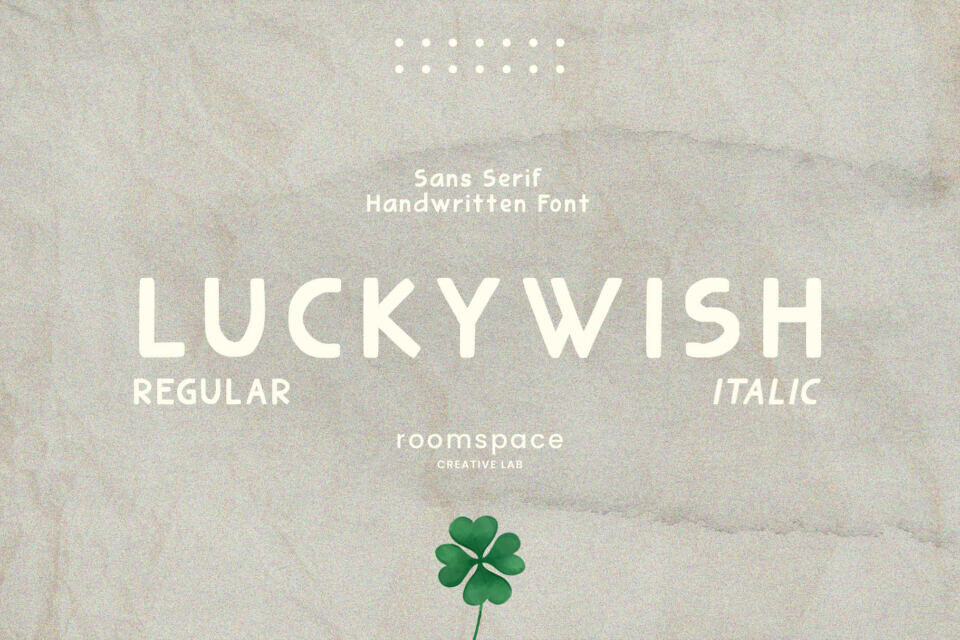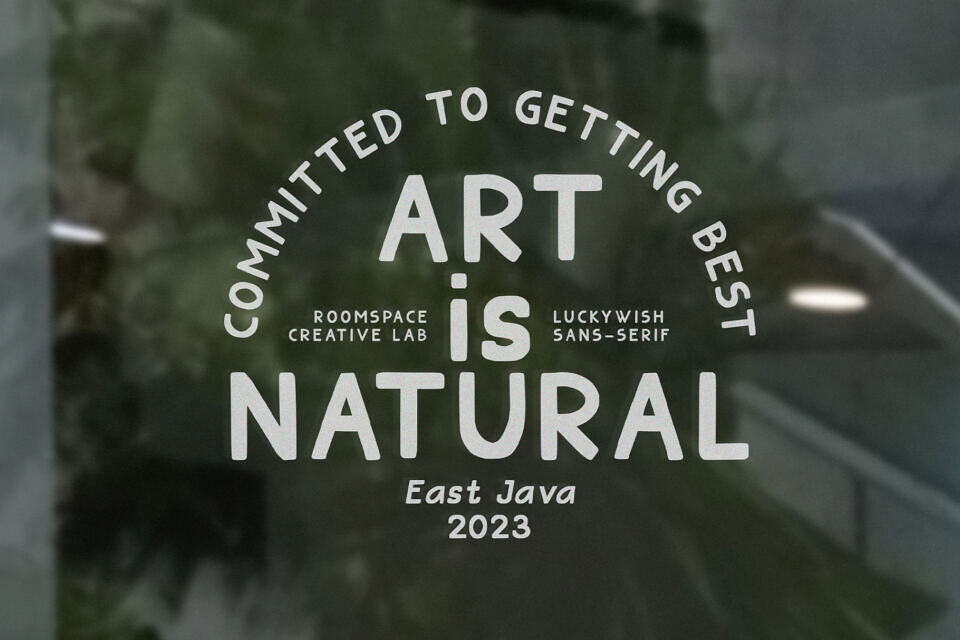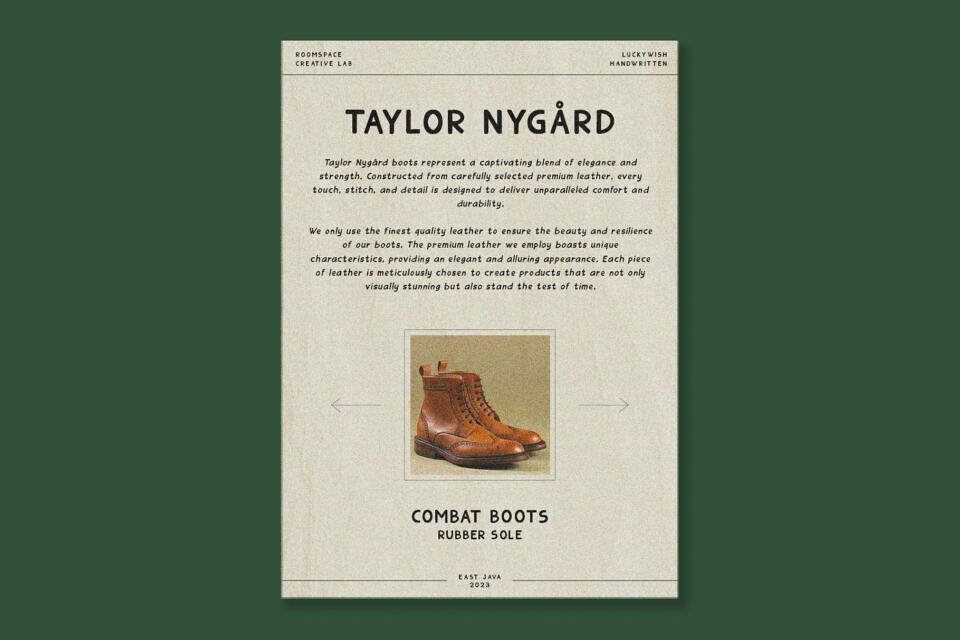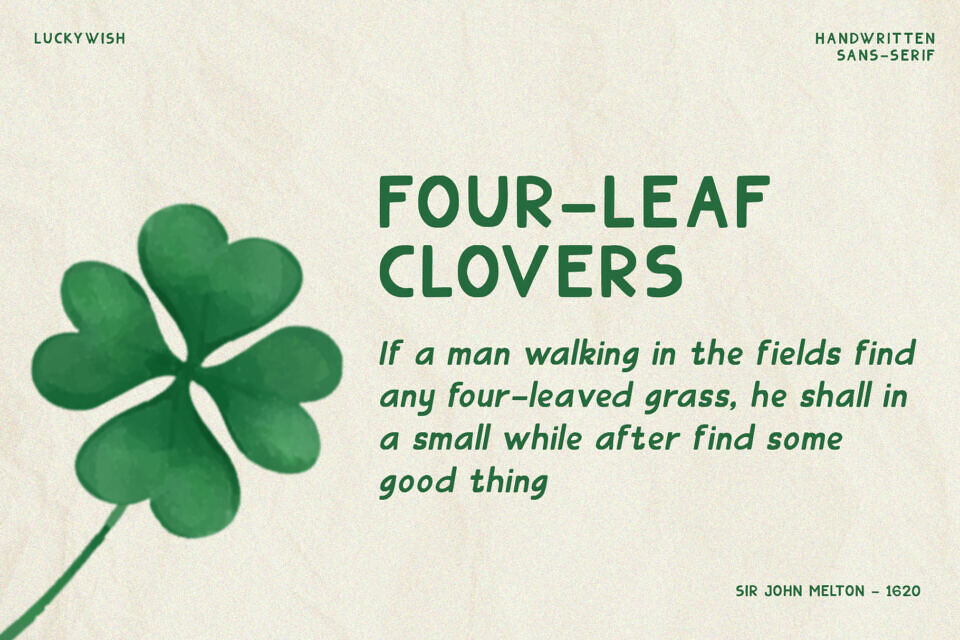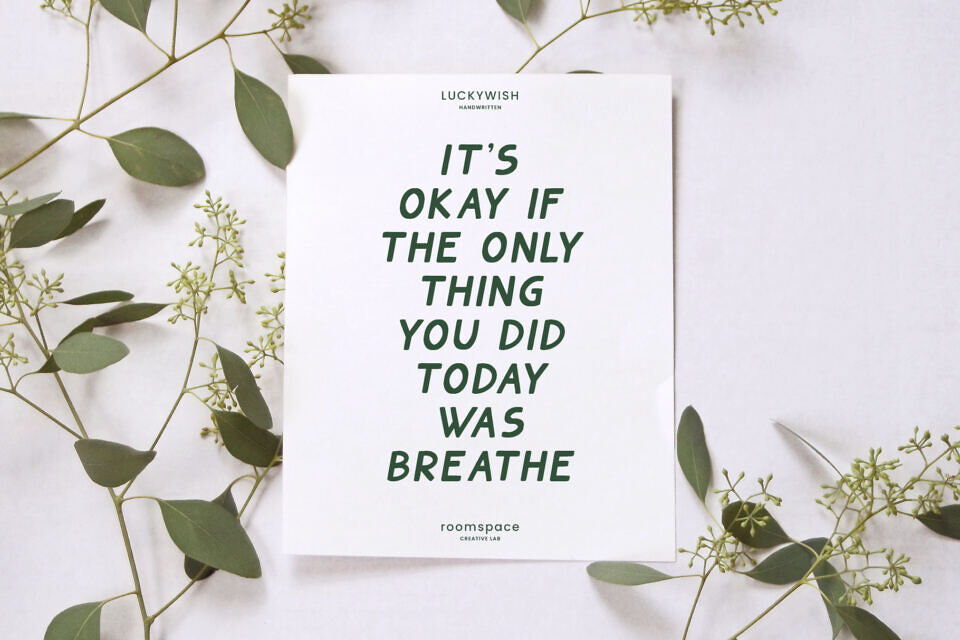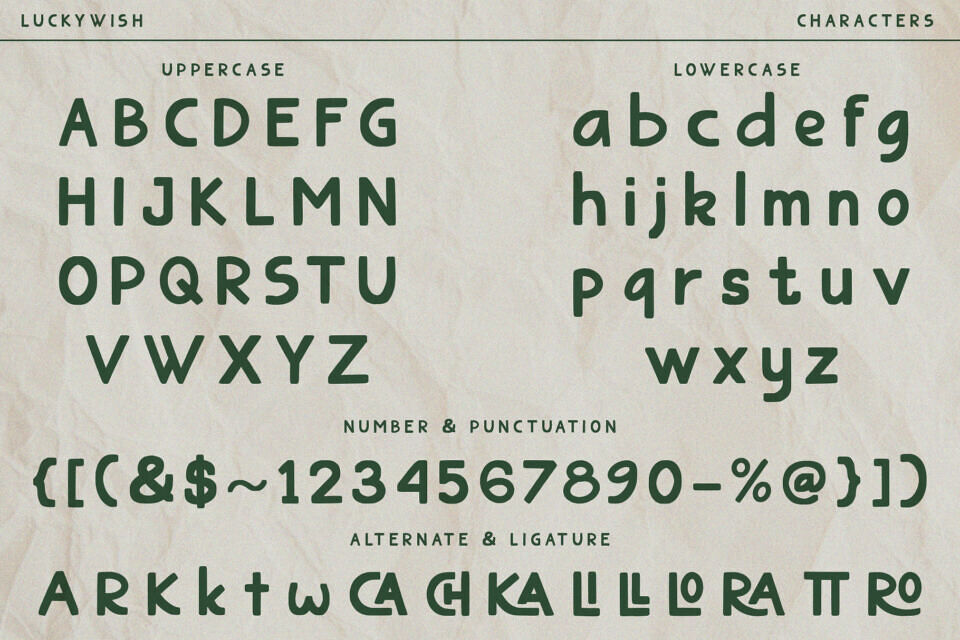
Luckywish is a symbol of hope that shines through every stroke found in each character. Crafted with heartfelt dedication, this font showcases the natural beauty of handwriting, bringing warmth and joy to every design composition.
Armed with a pen and imagination, Luckywish exudes a unique charm. Its relaxed and delicately intertwined style brings a friendly and inviting ambiance to every formed sentence. When used, this font will infuse happiness and a fresh spirit into every project you undertake. With its sans-serif characteristics, this font is easy to use and suitable for a variety of creative projects, from logo designs to posters, from wedding invitations to company branding.